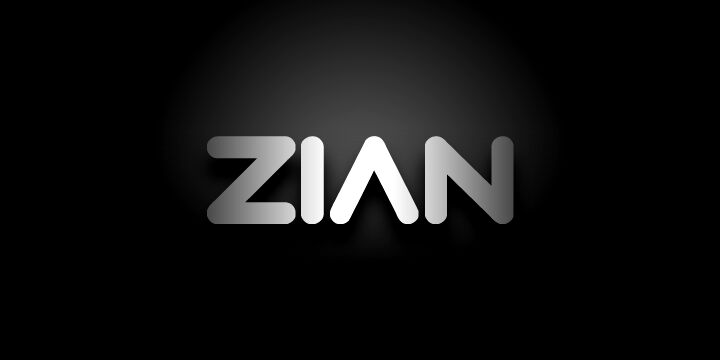
Zian, designed by Carlos Matteoli in 2012, is a free modern geometric display typeface with a broad, assertive, almost architectural build. The capitals use nearly uniform strokes, softly rounded ends, and very tight joins that turn several letters into continuous, logo-like silhouettes. Rectangular bowls and deep angled cuts keep the shapes strongly technical rather than soft.
Designers working in technology and futuristic entertainment could use it for software branding, electronic music posters, or science-fiction game titles. Across sports merchandise and digital graphics, the same wide proportions and engineered curves connect the lettering to speed, machinery, sports markings, and screen-based imagery.